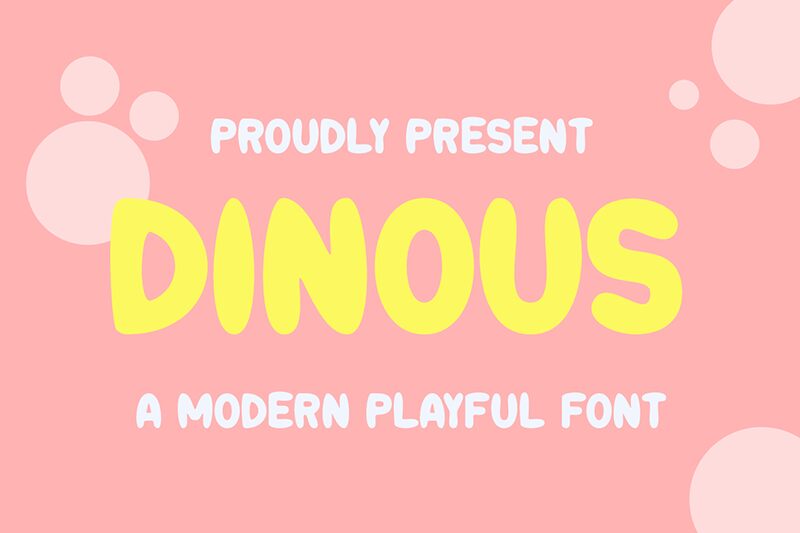
DINOUS
Dinous font by Gilang Ternadho is a friendly, bold cartoon display typeface with rounded and modern characters. Its approachable appearance is further apparent in its smooth, inviting outlines which create a welcoming impression to readers of all ages who encounter it. As the name imples, Dinous visualizes this dinosaur aspect in style.